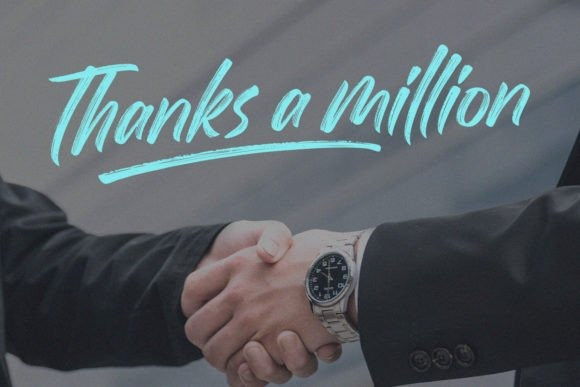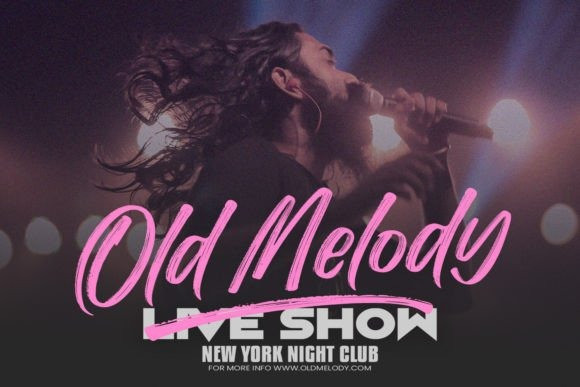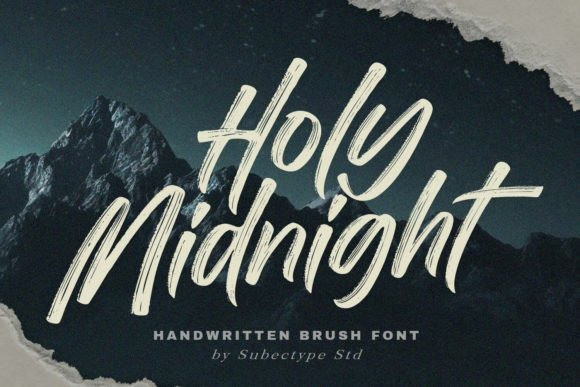
Holy Midnight Font
Holy Midnight Font is a handwritten brush font. It can convey a range of moods, from relaxed and friendly to artistic and eccentric. Making your message or artwork visually engaging and deeper in its impact, holy Midnight is ideal for logos, quotes, product packaging, or anything which needs a typographic turbo-boost.